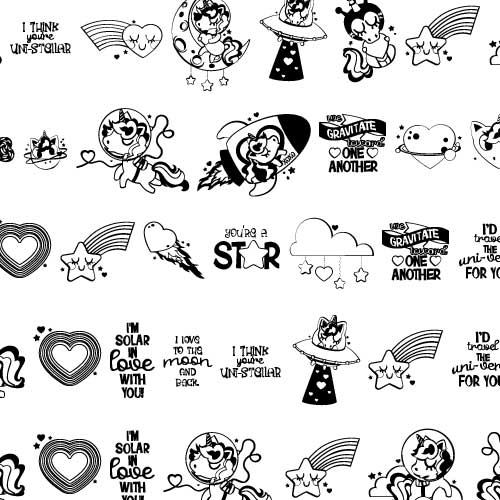
DB Uni-stellar - Crush - DB
This magical doodlebat font features 26 adorable space unicorns ready for Valentine's day and perfect for cards, crafts, gifts, planner stickers, classrooms, scrap book pages, parties, Valentine's and more!